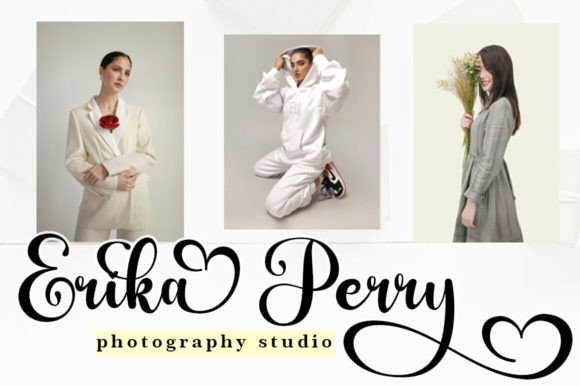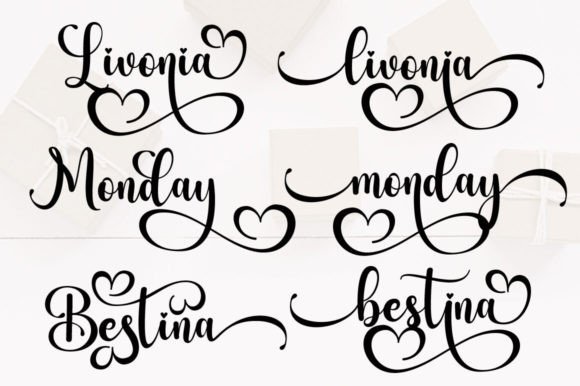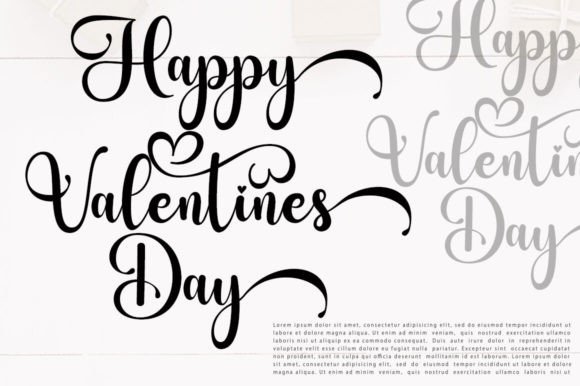
The Perfect Script for a Romantic Touch
Have you ever found yourself stuck on a project, searching for that perfect font to bring your design to life? You’re not alone. It’s a moment we’ve all experienced – the blank page staring back at us, the cursor blinking impatiently, and the pressure to create something truly special. But then, it happens. You stumble upon a font that speaks to you, and suddenly, the creative wheels start turning.
This is where the enchanting Basthiyan Font comes in – a versatile script font that’s guaranteed to add a romantic feel to your next project. With its wide spectrum of applications, from greeting cards to headlines, Basthiyan Font is a valuable addition to any designer’s toolkit. Whether you’re working on a wedding invitation, a love letter, or a whimsical illustration, Basthiyan Font is sure to bring a touch of elegance and sophistication to your design.
As a designer, you understand the importance of the right font in setting the tone and mood of your project. With Basthiyan Font, you’ll have the perfect tool to convey emotion and create a lasting impression. So why settle for anything less when you can add a touch of magic to your design with the Basthiyan Font?
Basthiyan Font Key Features
- Font Family: Basthiyan Font is a unique, modern font family designed to cater to the needs of Sri Lankan languages.
- Language Support: Designed to support the Sri Lankan languages, including Sinhala and Tamil, with advanced linguistic features and diacritics support.
- Unique Characteristics: Features a unique blend of traditional and modern design elements, with a focus on readability and aesthetics, making it ideal for various applications, including publishing, advertising, and branding.
- Font Style: Available in various font styles, including Regular, Bold, Italic, and Bold Italic, allowing users to choose the perfect style to suit their design needs.
Basthiyan Font Review
I’ve had the chance to work with Basthiyan Font, and I must say it’s a unique and interesting addition to any design project. ✨ The font’s elegant, handwritten feel immediately grabs attention and can add a touch of sophistication to text-based elements.
One of the standout features of Basthiyan Font is its versatility. ✨ It can be used for both formal and informal projects, making it a great choice for designers who need a font that can adapt to different contexts.
Here are some of the key features that work well:
- Unique, handwritten style that adds character to text
- Versatile and can be used for a range of projects
- High-quality font files that ensure crisp, clear rendering
- ⚠️ Limited character set, which may require additional font files for certain languages
- ⚠️ May not be suitable for projects that require a highly formal or professional tone
- ⚠️ Some users may find the font’s handwritten feel too cursive or hard to read
Overall, Basthiyan Font is a solid choice for designers who want to add some personality to their projects. While it may have some limitations, its unique style and versatility make it a great addition to any design toolkit.
Tips for Getting the Most Out of Basthiyan Font
To get the most out of Basthiyan Font, try the following:
- Experiment with different font sizes and styles to achieve a unique look.
- Use Basthiyan Font in combination with other fonts to create a visually appealing design.
- Pay attention to the font’s cultural connotations and use it in a way that is respectful and sensitive.
Basthiyan Font is commonly used in:
- Traditional and cultural designs.
- Graphic design projects that require a unique and exotic look.